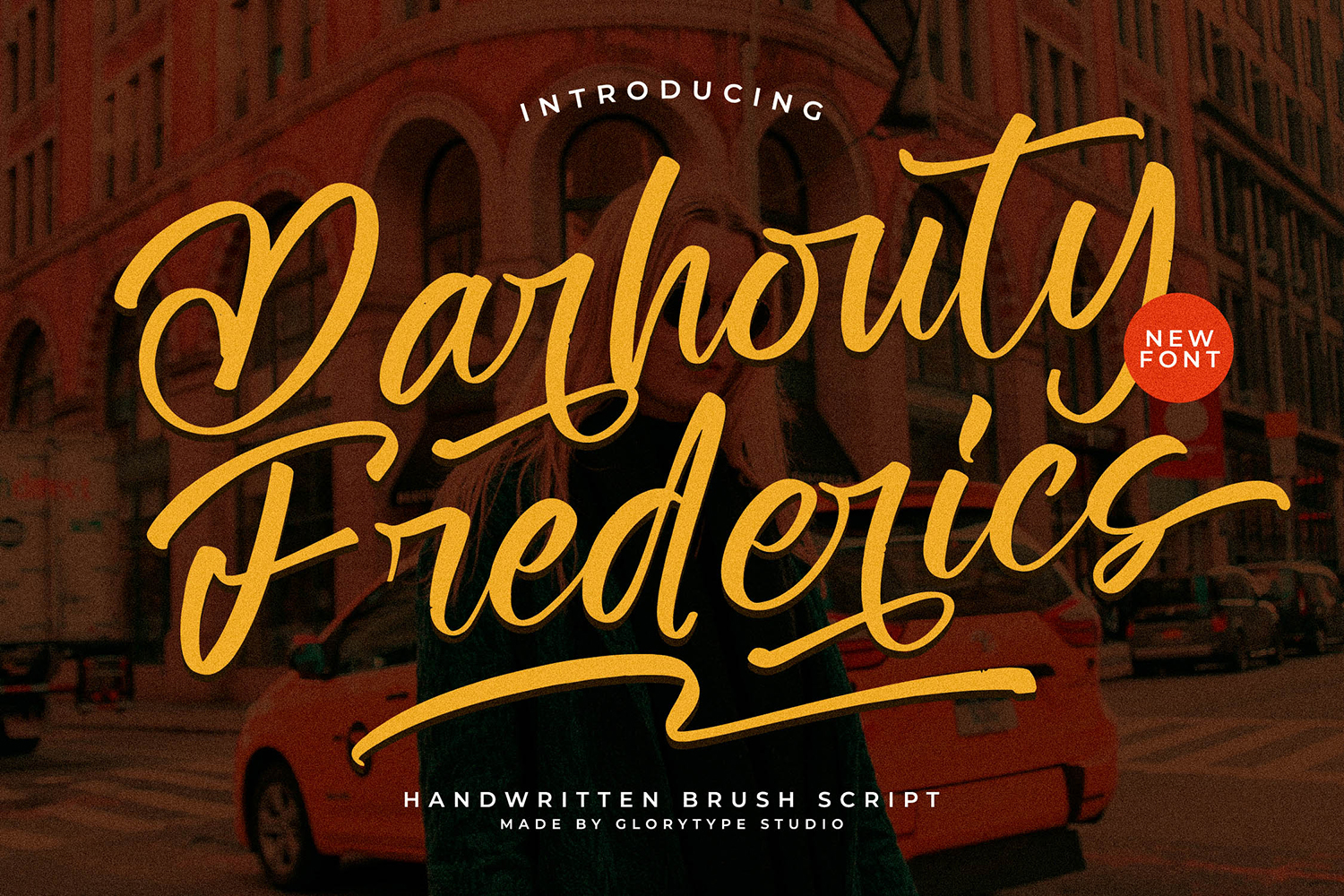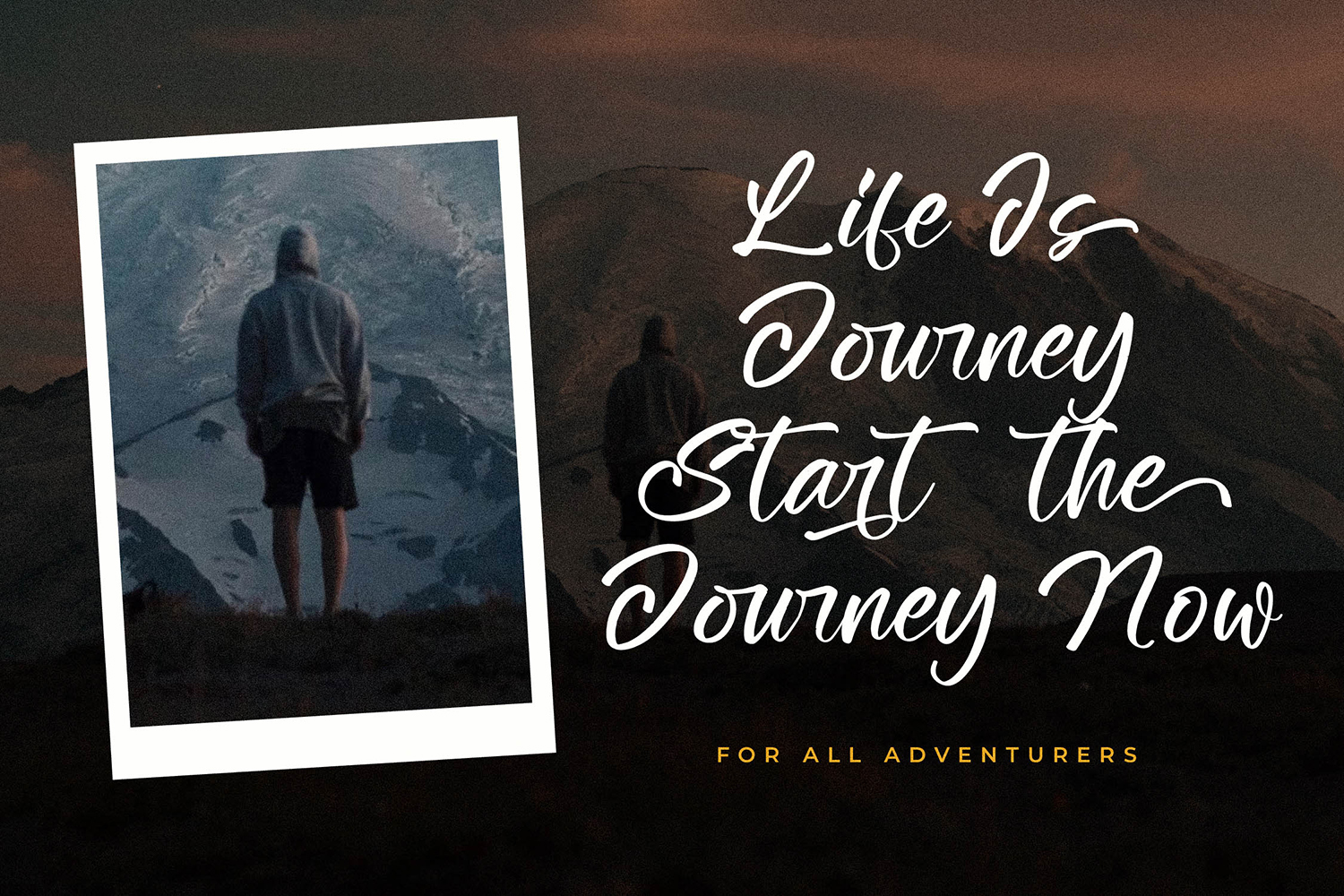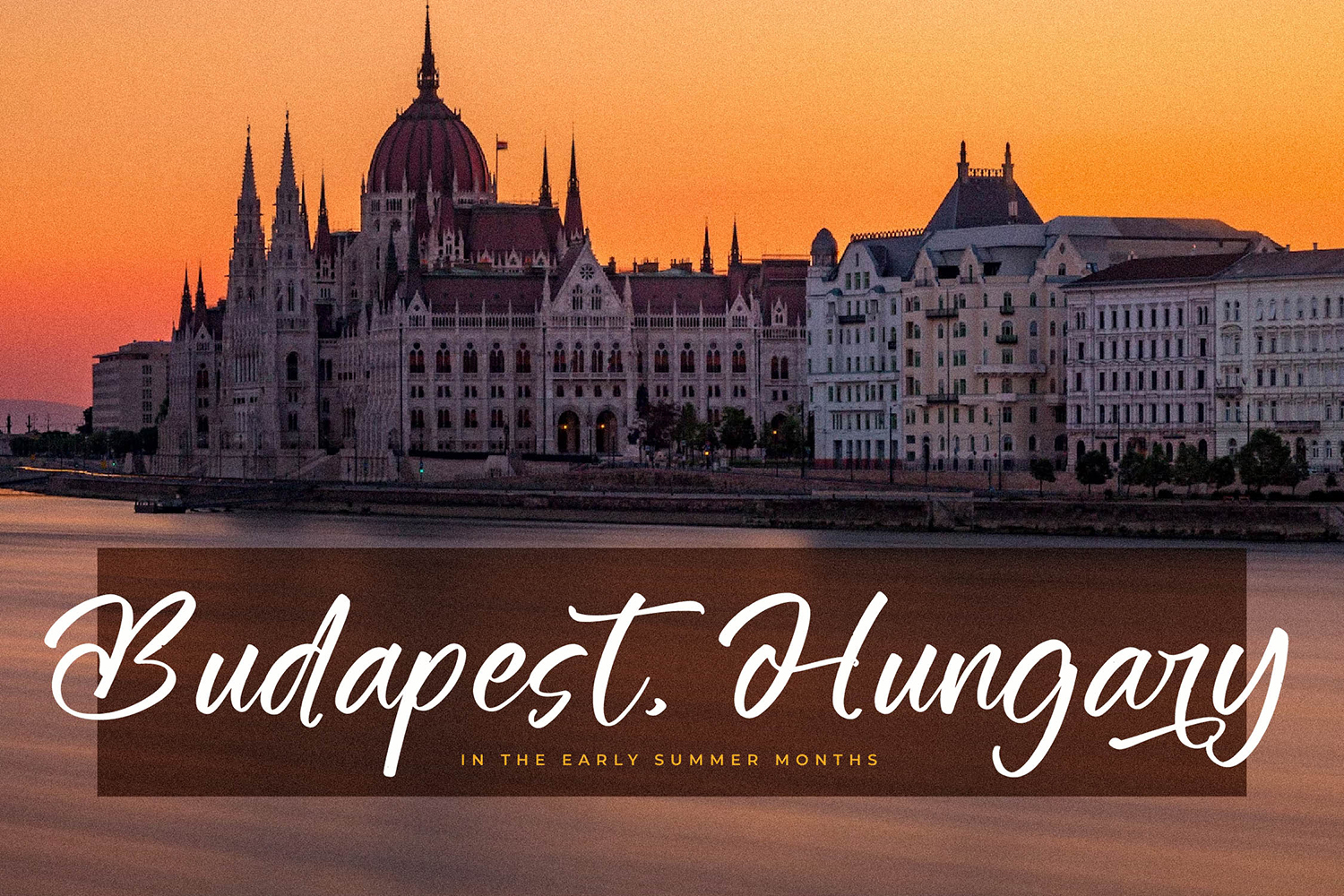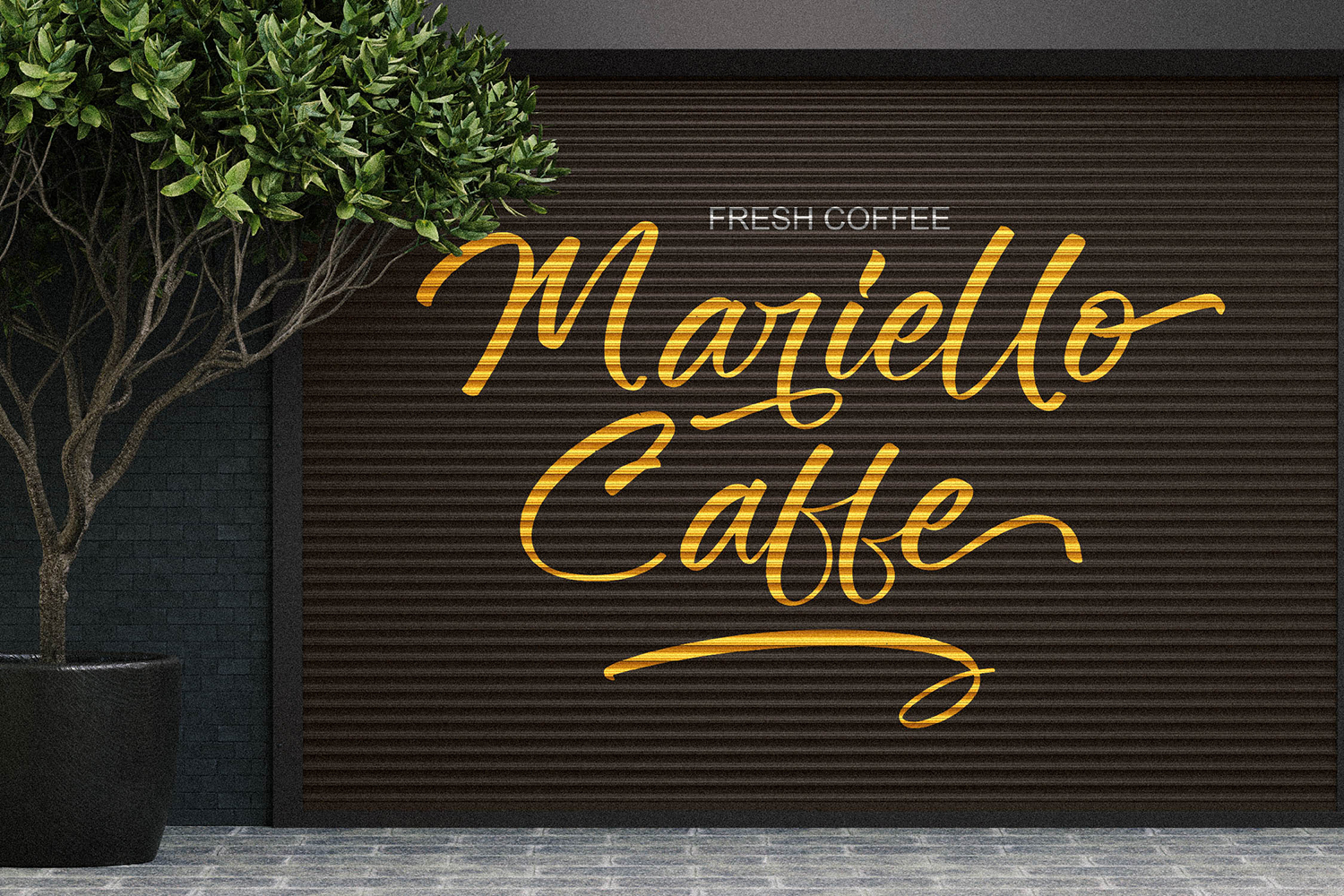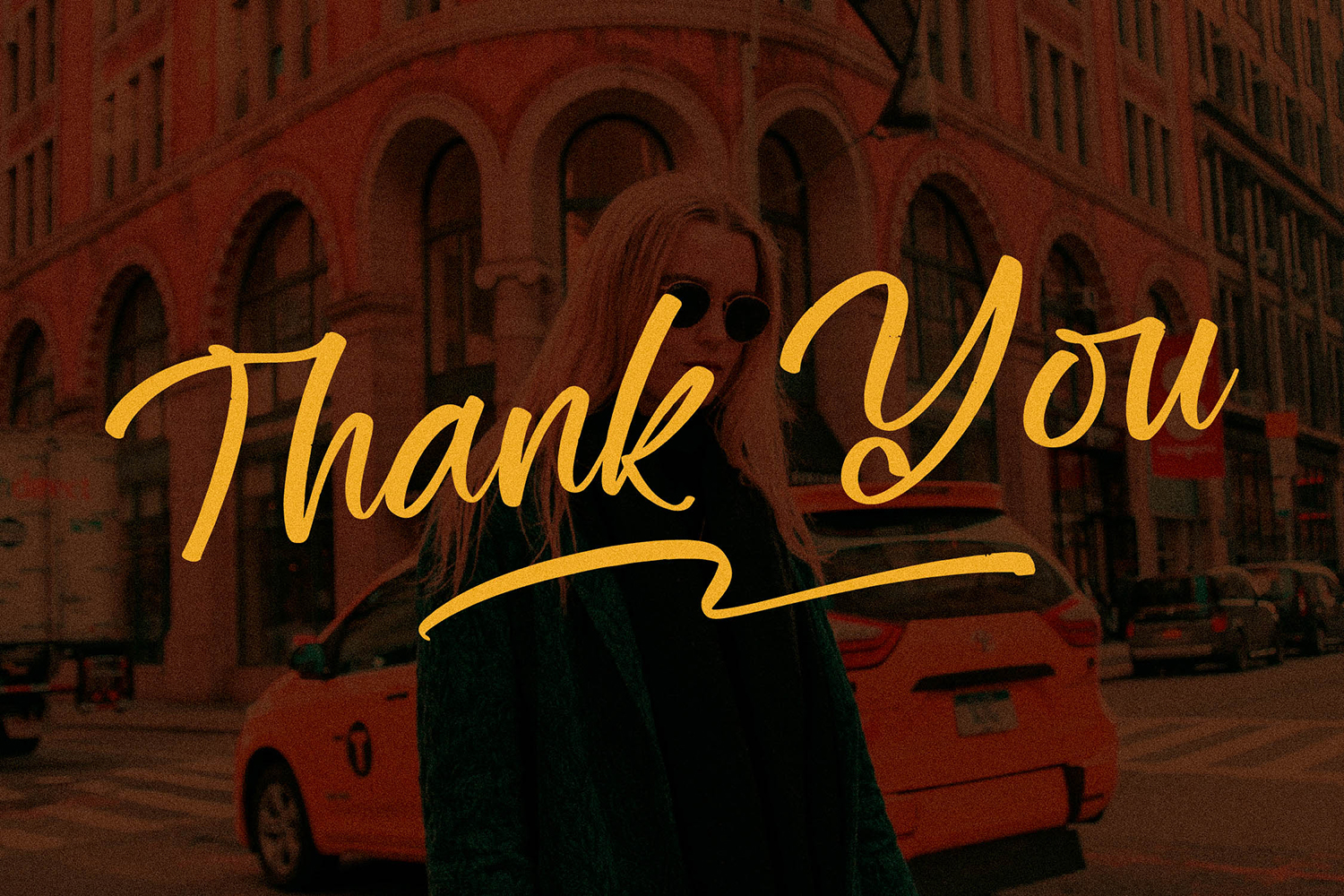
Darhouty Frederics Free Font
Introducing Darhouty Frederics Free Font, a stunning handwritten brush script font that exudes a sense of elegance and refinement. With its sweeping brushstrokes and natural letter variations, this font perfectly captures the essence of hand lettering, making it a perfect choice for any design project that requires a touch of elegance and individuality. Whether you’re creating a romantic wedding invitation, a heartfelt message, or a personal brand, Darhouty Frederics adds a unique and special touch to any design. The font’s unique style is inspired by traditional calligraphy, which is characterized by fluid and dynamic strokes and elegant letterforms, making it perfect for creating designs such as invitations, posters, and packaging. Its versatility allows you to use it for various designs like headlines, branding, social media posts, and more. Download Darhouty Frederics now, and add a touch of sophisticated charm to your designs!